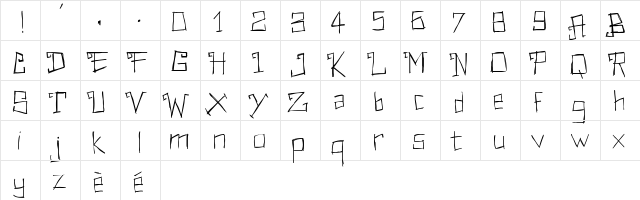
PWRectangular Medium Font Preview
PWRectangular Medium
Design Context for PWRectangular Typeface
PWRectangular is a composed and adaptable typeface that performs quietly and consistently across a wide range of design contexts.